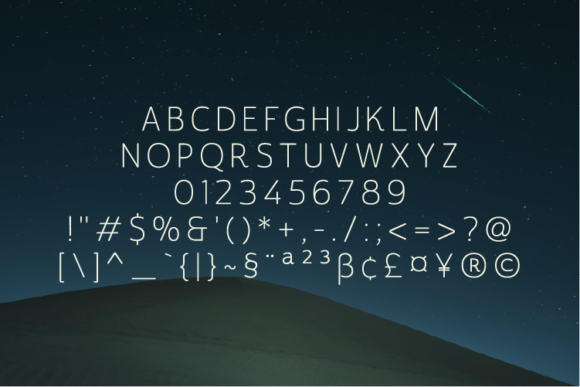
Discover the Friendly and Expressive Argodame Extra Light Font
In the world of typography, fonts play a crucial role in conveying messages, evoking emotions, and creating brand identities. For designers and crafters, finding the perfect font can be a daunting task. However, if you’re looking for a modern, contemporary, and classic font that can elevate your designs, look no further than the Argodame Extra Light Font. In this article, we’ll explore the features, benefits, and uses of this versatile font.
What is Argodame Extra Light Font?
Argodame is a rounded sans serif font that boasts soft terminals, giving it a friendly and expressive look. Its unique design makes it an excellent choice for a wide range of applications, from headlines and logotypes to branding, books, magazines, and motion graphics. The Argodame Extra Light Font is a part of the Argodame font family, which offers a range of weights and styles to suit different design needs.
Key Features of Argodame Extra Light Font
- Rounded Sans Serif: Argodame’s rounded edges and soft terminals create a friendly and approachable feel, making it perfect for designs that require a gentle touch.
- Modern and Contemporary Style: The font’s sleek and modern design ensures that your designs look fresh and up-to-date.
- Classic Proportions: Argodame’s classic proportions make it an excellent choice for body text, headlines, and titles, ensuring that your designs are both aesthetically pleasing and highly legible.
- High Versatility: The Argodame Extra Light Font can be used for a wide range of applications, including branding, advertising, packaging, and digital media.
Benefits of Using Argodame Extra Light Font
The Argodame Extra Light Font offers several benefits to designers and crafters, including:
- Improved Readability: The font’s clear and legible design ensures that your text is easy to read, even at small sizes.
- Enhanced Brand Identity: Argodame’s unique and friendly design can help create a distinctive brand voice and aesthetic.
- Increased Creativity: The font’s versatility and range of weights and styles allow you to experiment with different designs and creative ideas.
- Time-Saving: With Argodame, you can quickly and easily create professional-looking designs without spending hours searching for the perfect font.
Uses of Argodame Extra Light Font
The Argodame Extra Light Font is suitable for a wide range of applications, including:
- Headlines and Titles: Use Argodame to create eye-catching headlines and titles that grab attention.
- Branding and Logotypes: The font’s unique design makes it an excellent choice for creating distinctive brand identities and logotypes.
- Books and Magazines: Argodame’s classic proportions and clear design make it perfect for body text and headlines in books and magazines.
- Motion Graphics: The font’s modern and contemporary style makes it an excellent choice for motion graphics, animations, and video titles.
In conclusion, the Argodame Extra Light Font is a versatile and highly effective font that can elevate your designs and help you create stunning visual content. Its unique blend of modern and classic design elements makes it an excellent choice for designers and crafters looking for a font that can deliver results. Whether you’re working on a branding project, creating a book or magazine, or designing motion graphics, Argodame is an excellent choice.